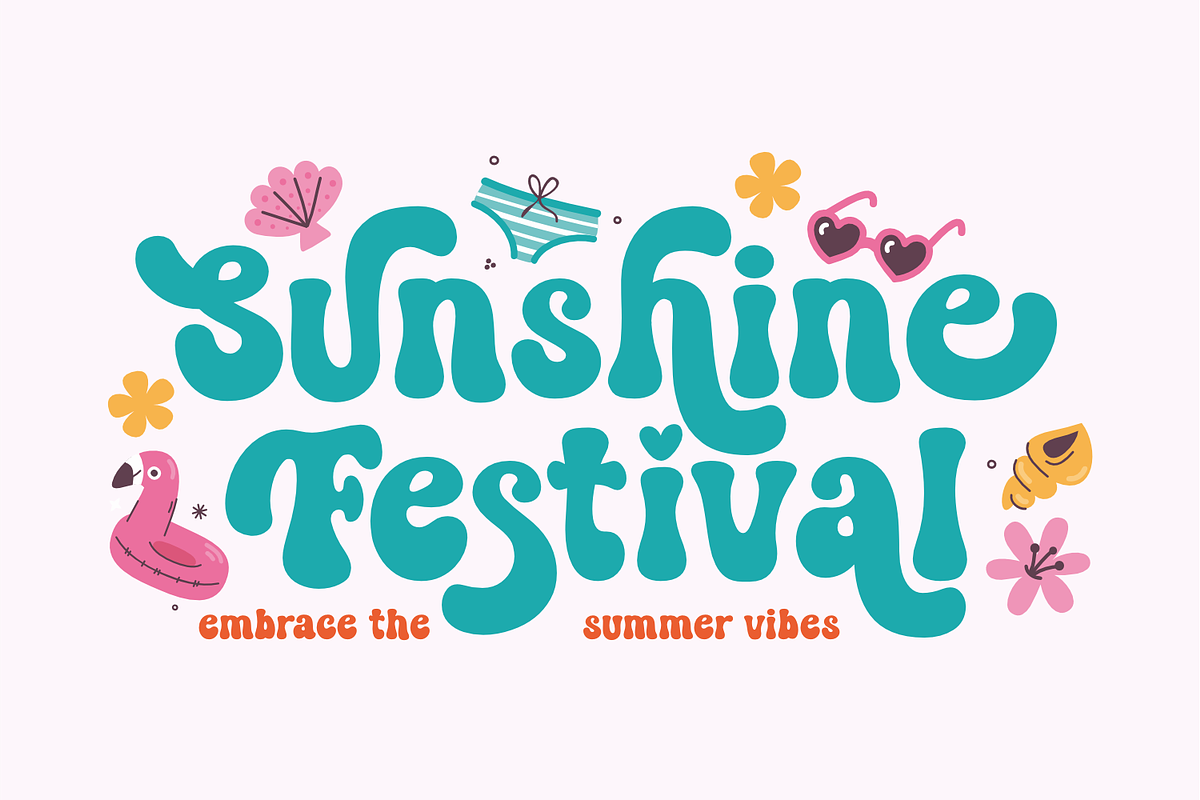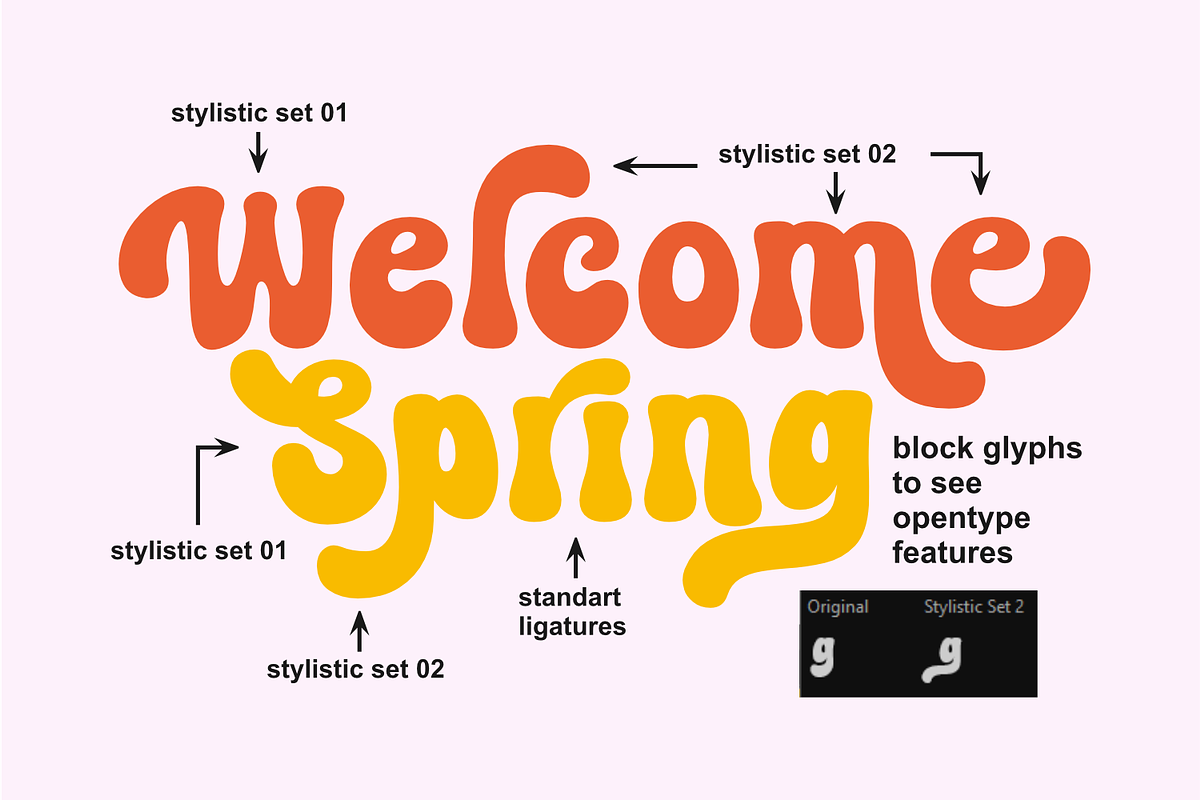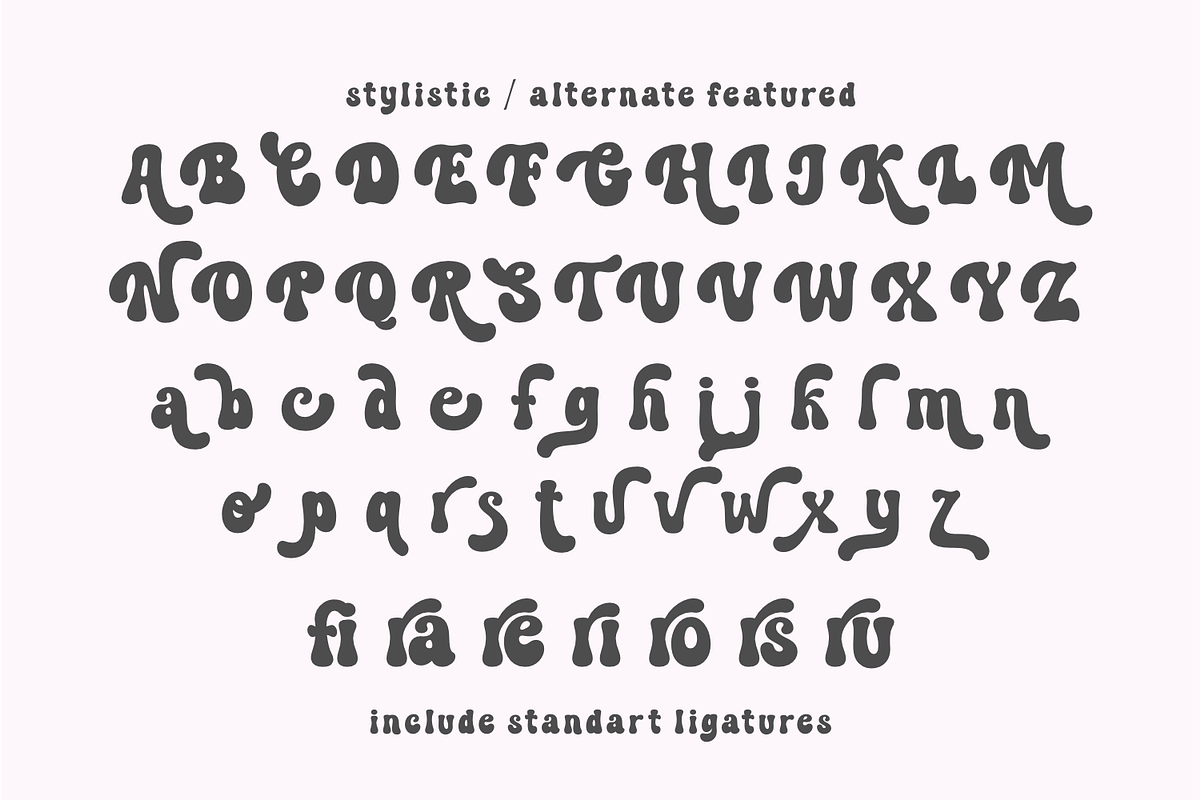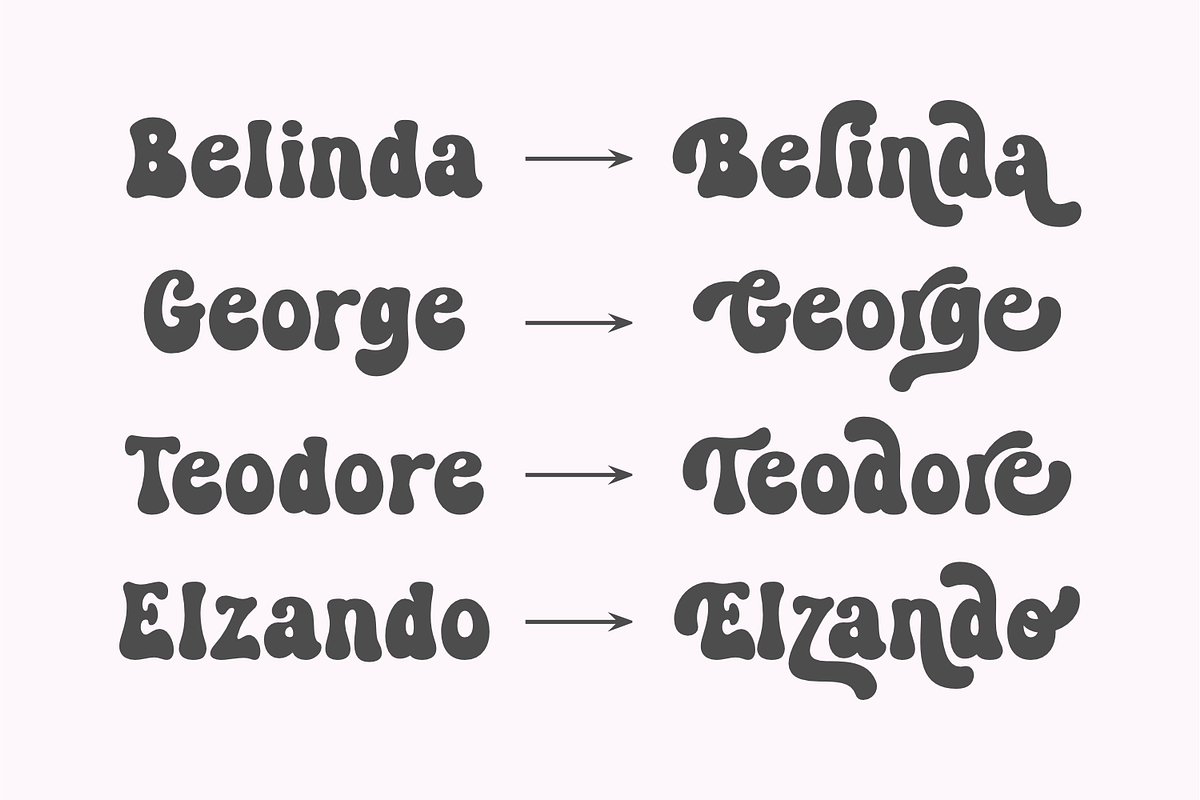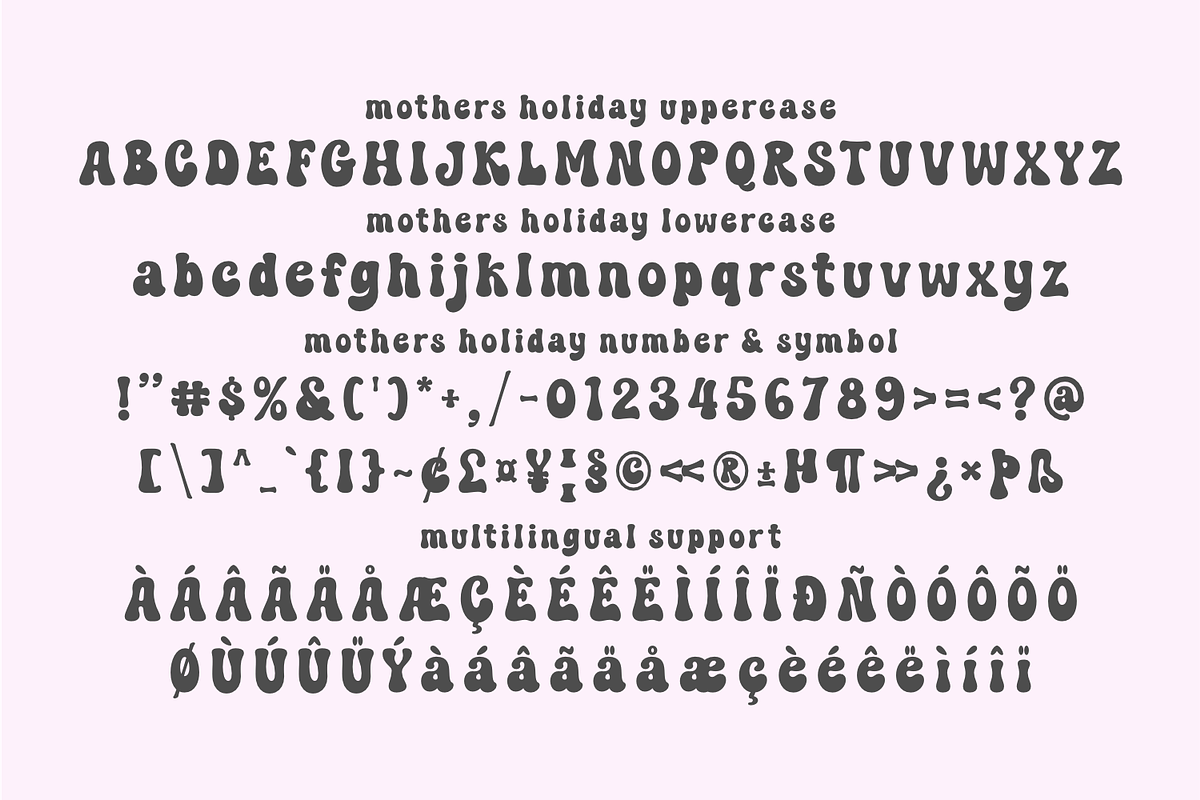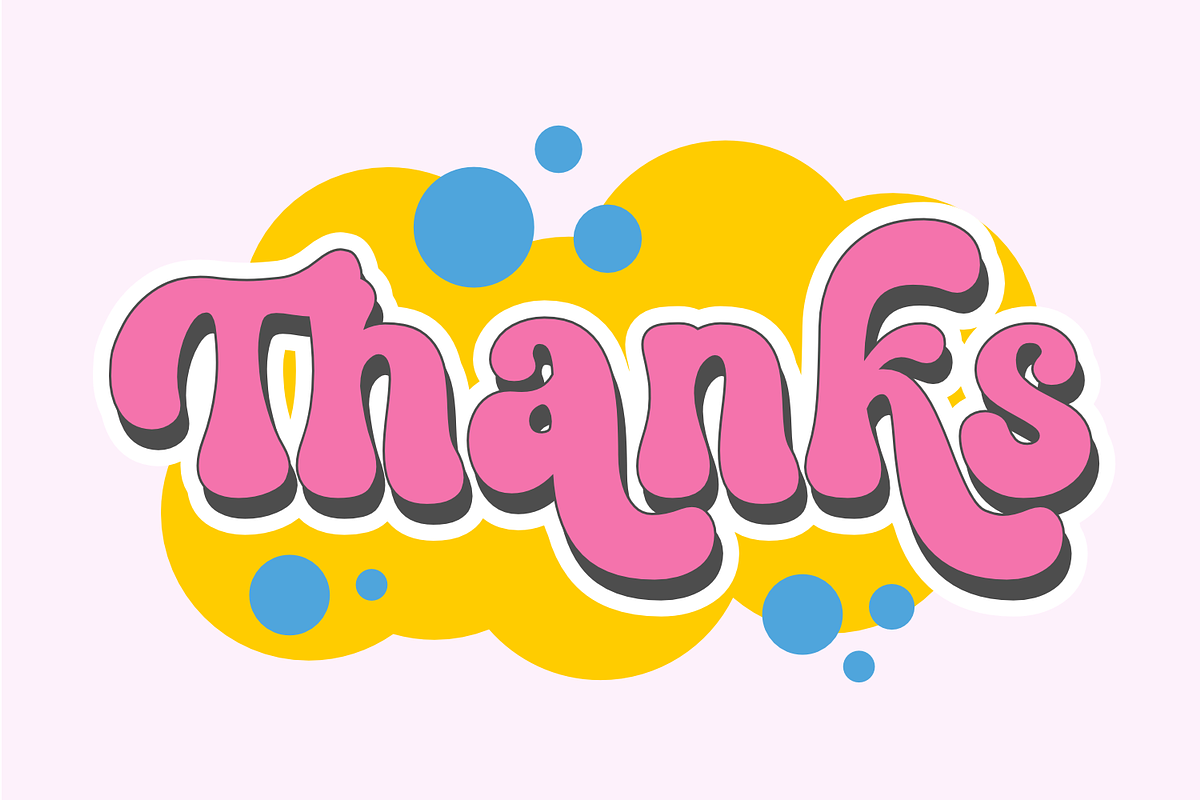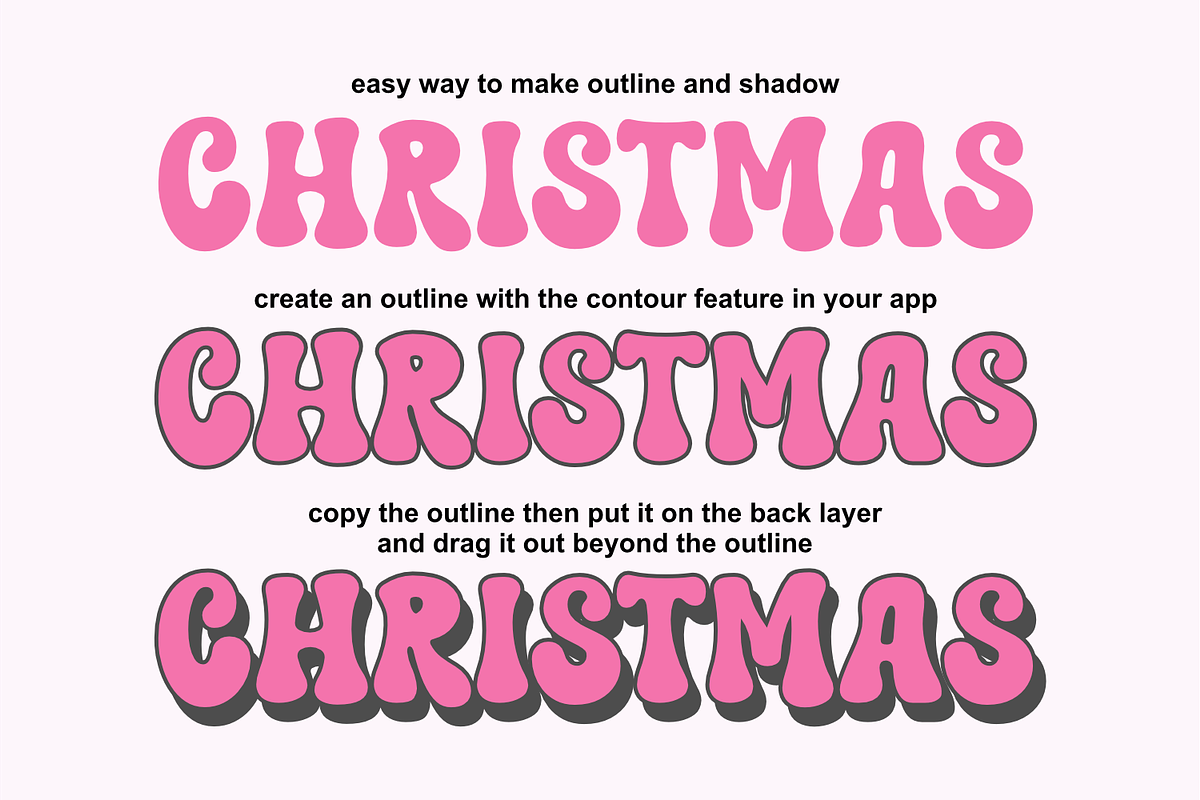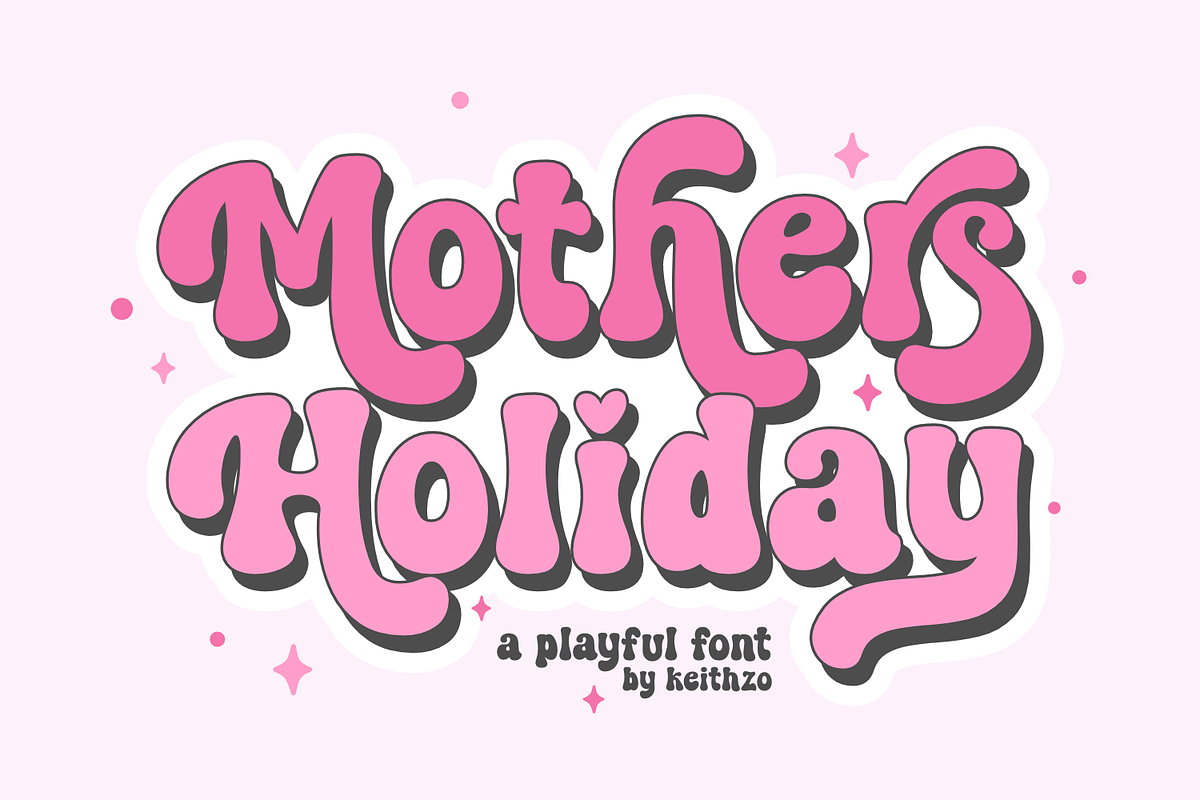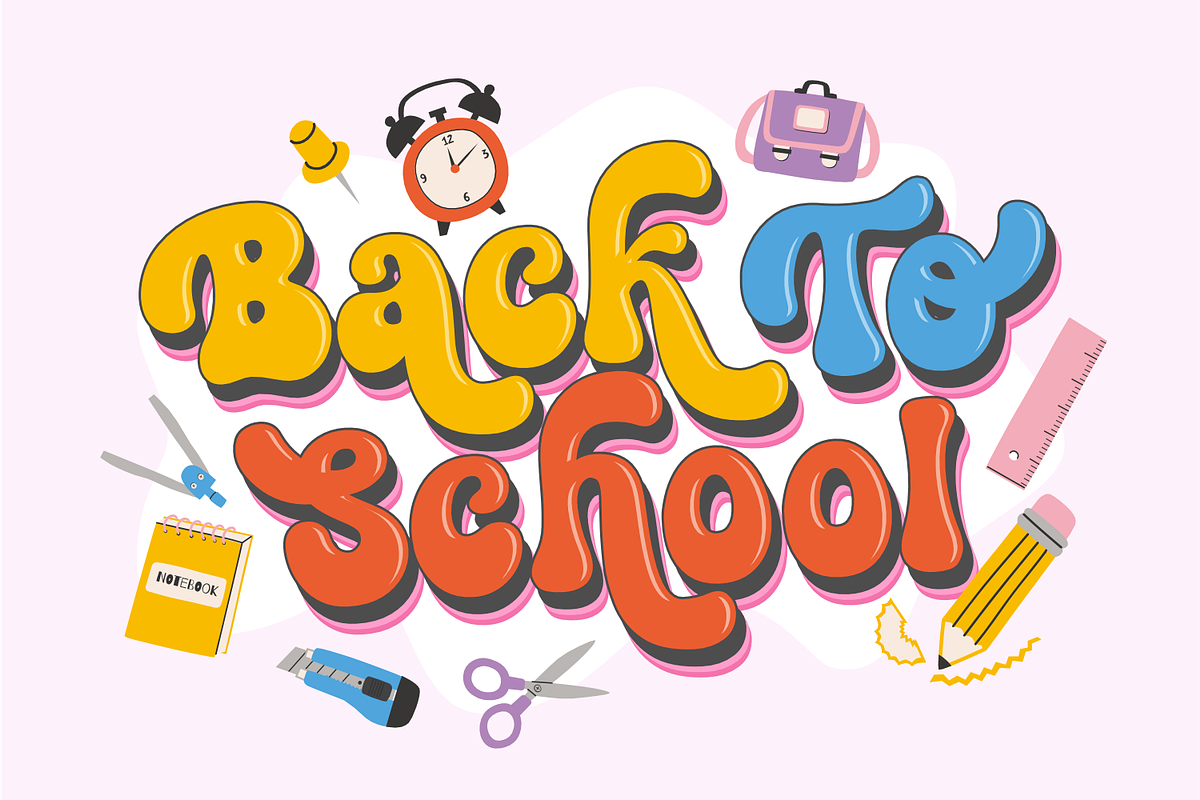
Mother's Holiday - Playful RetroFont
Unleash a burst of sunshine and retro vibes with Mother’s Holiday! This isn’t just a font, it’s a time machine to groovy days and playful moments. Packed with charming alternates and extra glyphs, it’s your secret weapon for crafting eye-catching designs that scream fun. Perfect for everything from whimsical birthday invites to vintage-inspired merch, Mother’s Holiday turns ordinary projects into extraordinary celebrations.
with Mother’s Holiday, the font that effortlessly blends cute, bold, and groovy! Imagine: back-to-school brilliance, summer sizzle, and birthday bash magic, all powered by a single font. With a treasure trove of alternates and glyphs, you’ll have endless creative freedom to craft standout t-shirts, stickers, and more. Get ready to make your designs pop with a dose of Mother’s Holiday !